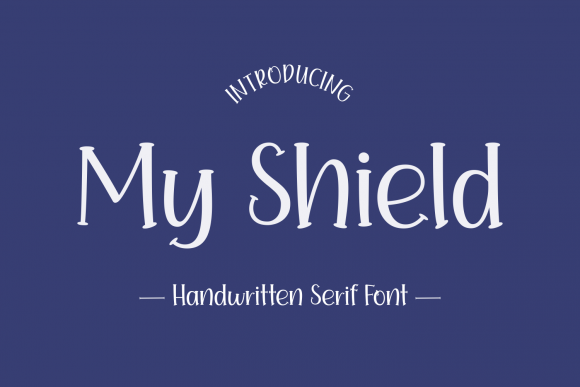
In a world of ordinary fonts, where letters blend together in a monotonous procession, My Shield Font emerges as a beacon of creativity and distinction. This remarkable display font, crafted by the ingenious minds at Jasm (7NTypes), is a testament to the power of imagination and the transformative nature of typography.
With its whimsical personality and captivating quirks, My Shield Font possesses an undeniable charm that will elevate your designs to new heights. Its playful nature dances across the page, capturing the attention of readers and inviting them to embark on a journey of visual delight.
This captivating font is more than just a collection of characters; it's an expression of individuality and a celebration of the written word. Its unique letterforms, adorned with intricate details and unexpected flourishes, create a visual symphony that dances before the eyes. Blending the classic with the contemporary, My Shield Font seamlessly merges the familiar with the unexpected, resulting in a typographic masterpiece that defies convention.
Whether you're a seasoned designer seeking inspiration or a novice just starting your creative journey, My Shield Font is the perfect companion for your artistic endeavors. Its versatility shines through in a myriad of applications, from book interiors to branding projects, social media graphics to website designs. With each use, this font breathes life into your creations, transforming them into captivating works of art that leave a lasting impression.
As you navigate the digital realm, seeking fonts that ignite your imagination and resonate with your creative vision, let My Shield Font be your guiding light. Its enchanting aura will cast a spell on your designs, captivating audiences and leaving them spellbound by your typographic prowess.
With My Shield Font as your weapon of choice, you'll conquer the world of design, creating captivating visuals that transcend the boundaries of the ordinary. Embrace the magic of this extraordinary font and witness the transformation of your creative dreams into tangible realities.